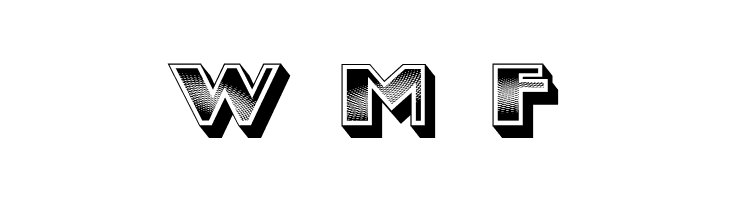
A bold, playful handwritten font with smooth curves and thick strokes.
Casual handwritten script font.
A bold, angular font with a dynamic, rebellious style.
A bold, decorative font with a 3D shadow effect and textured detailing.
A bold, distressed font with a grunge texture, perfect for vintage designs.
An elegant serif italic font with moderate contrast and graceful letterforms.
A bold, italicized font with dynamic and energetic styling.
A graceful and flowing script font with elegant, connected strokes.
A rugged, distressed font with a hand-carved, organic appearance.
A bold, three-dimensional font with a vintage, shadowed style.